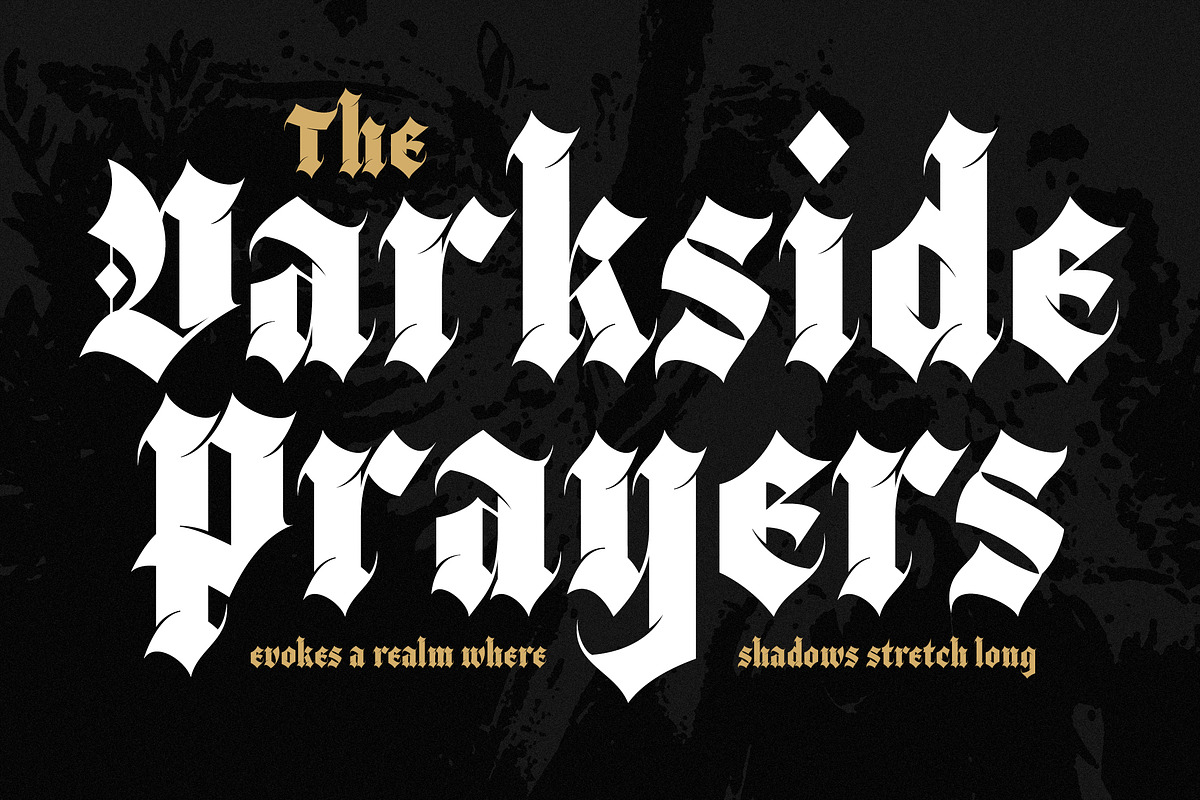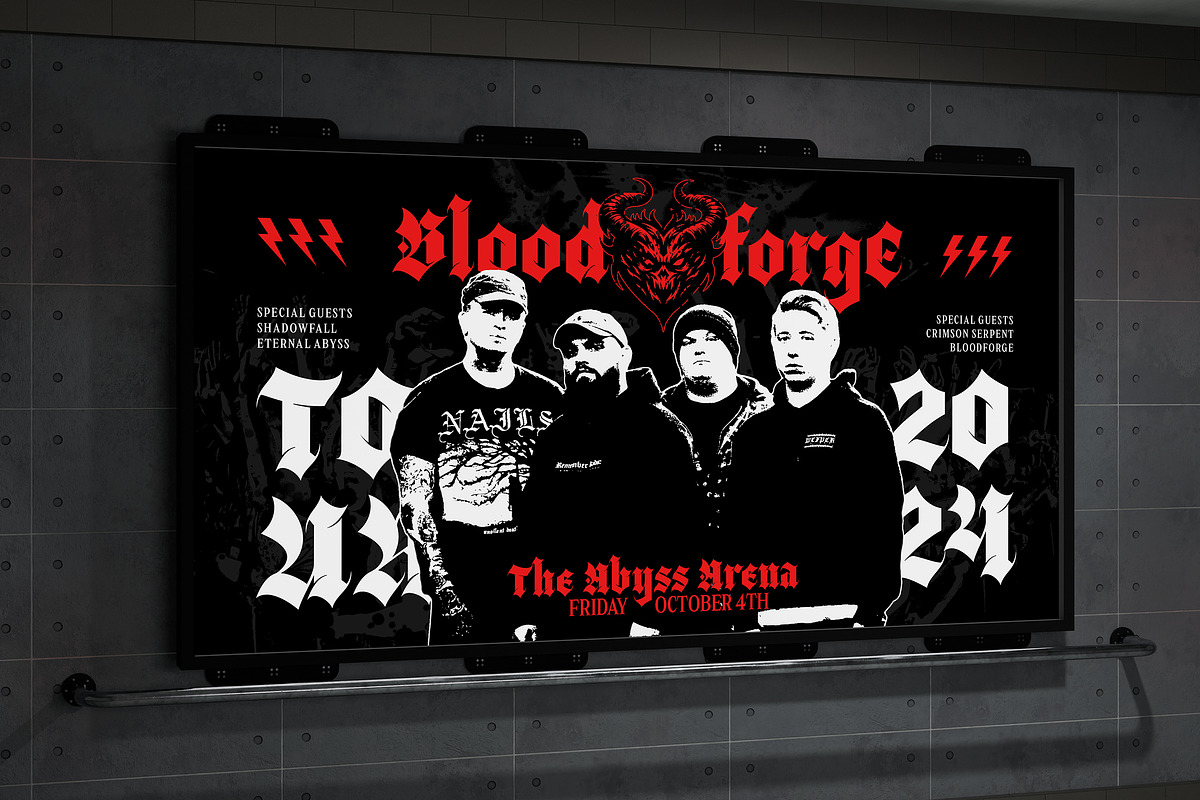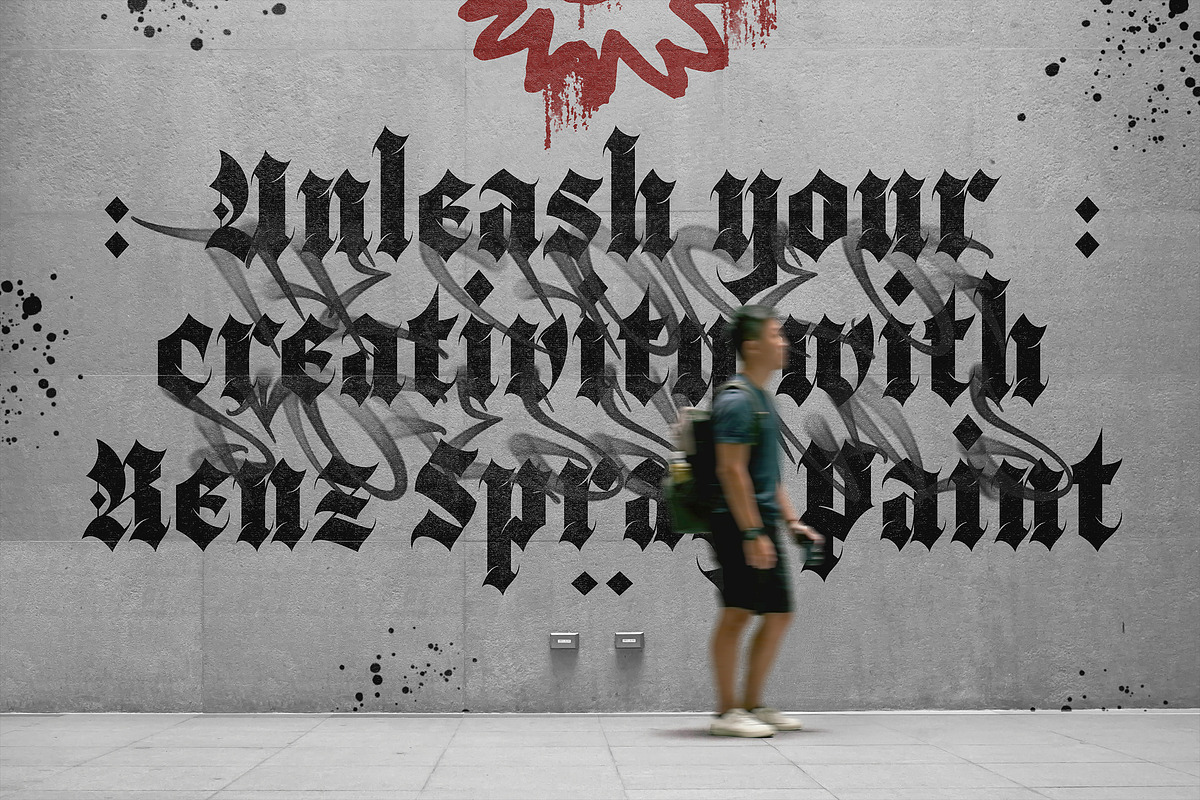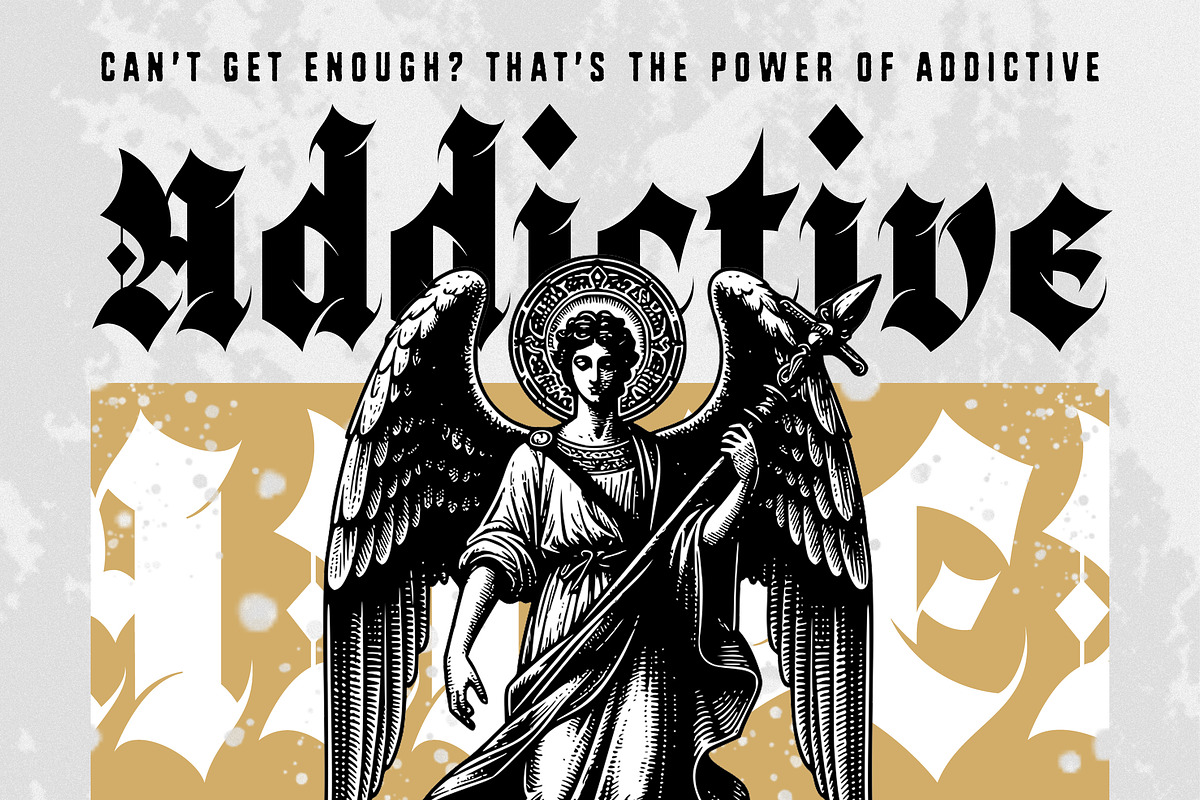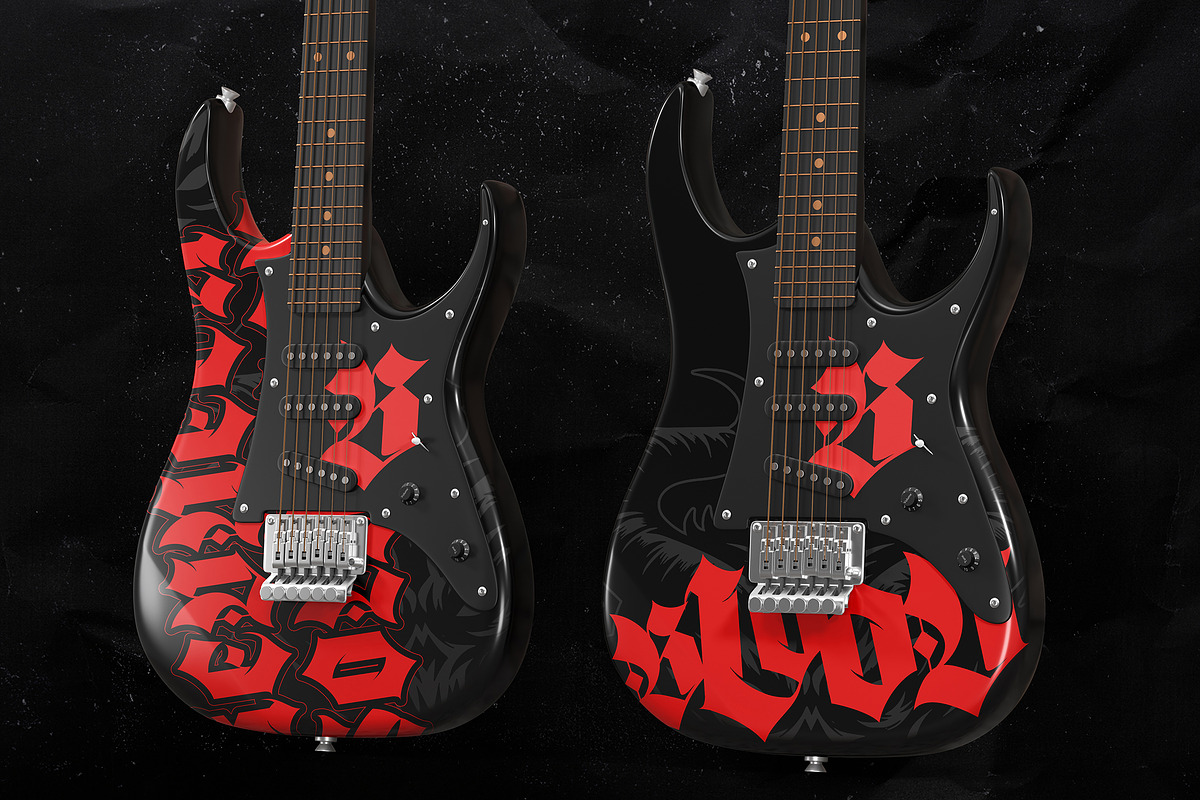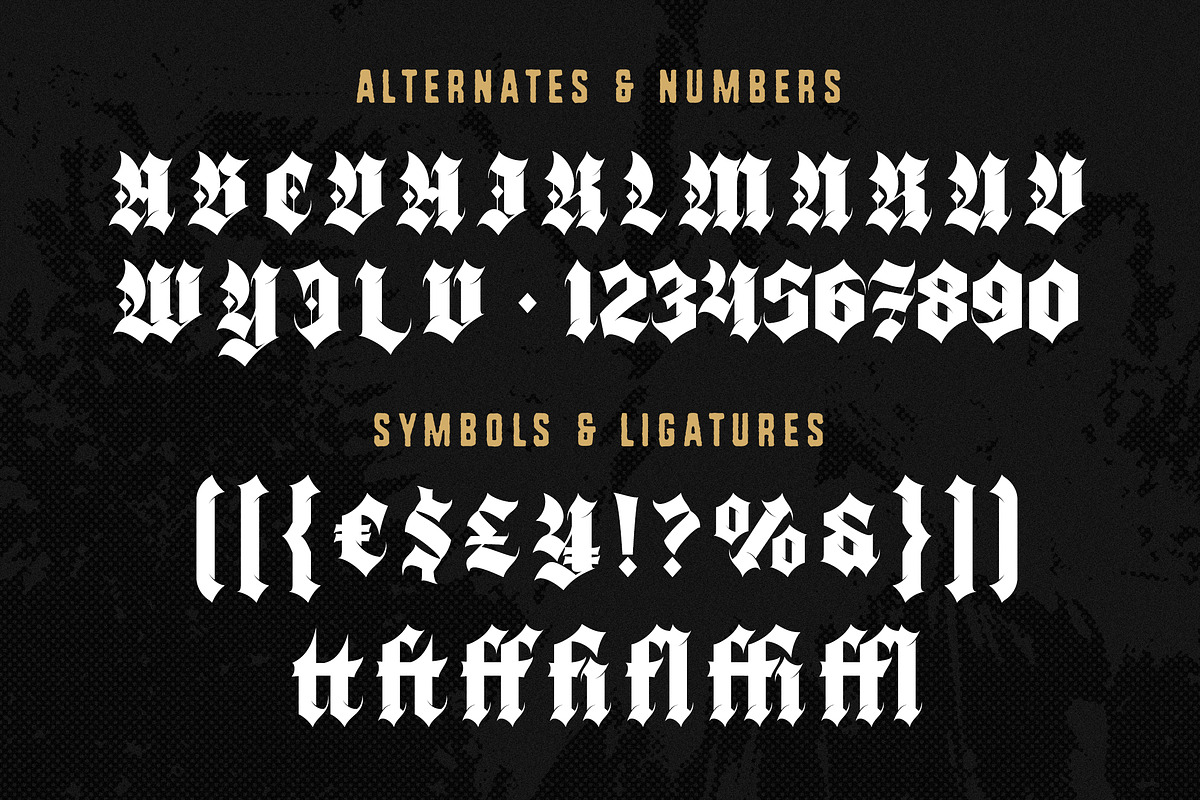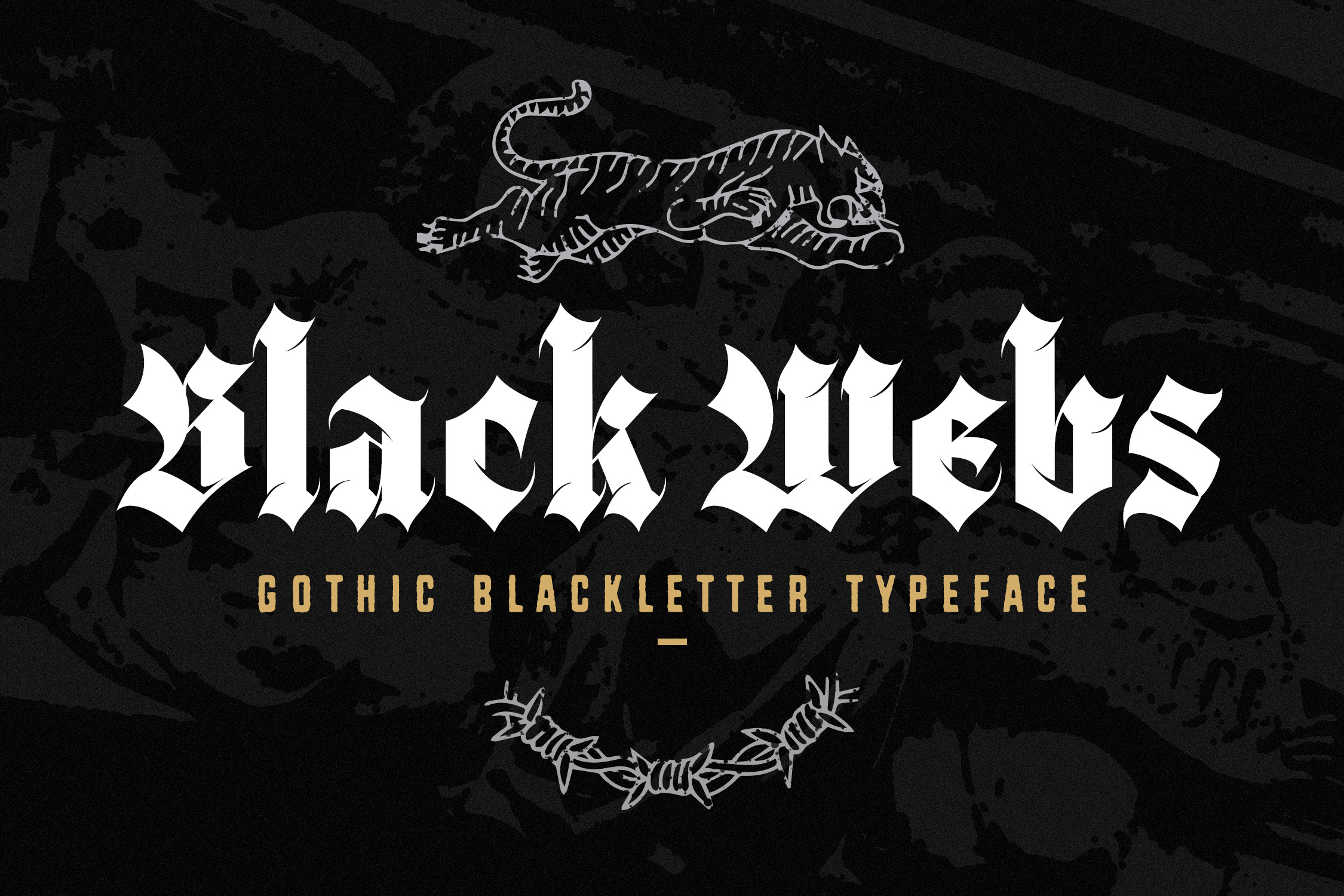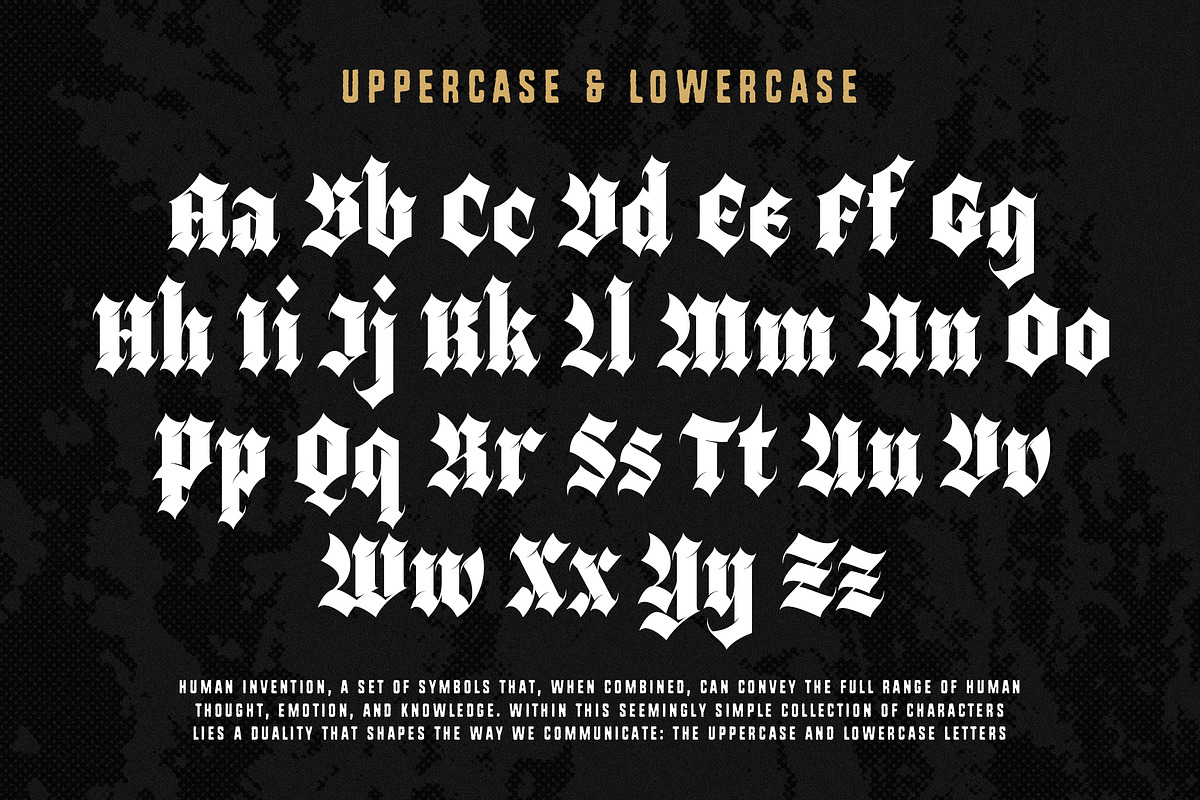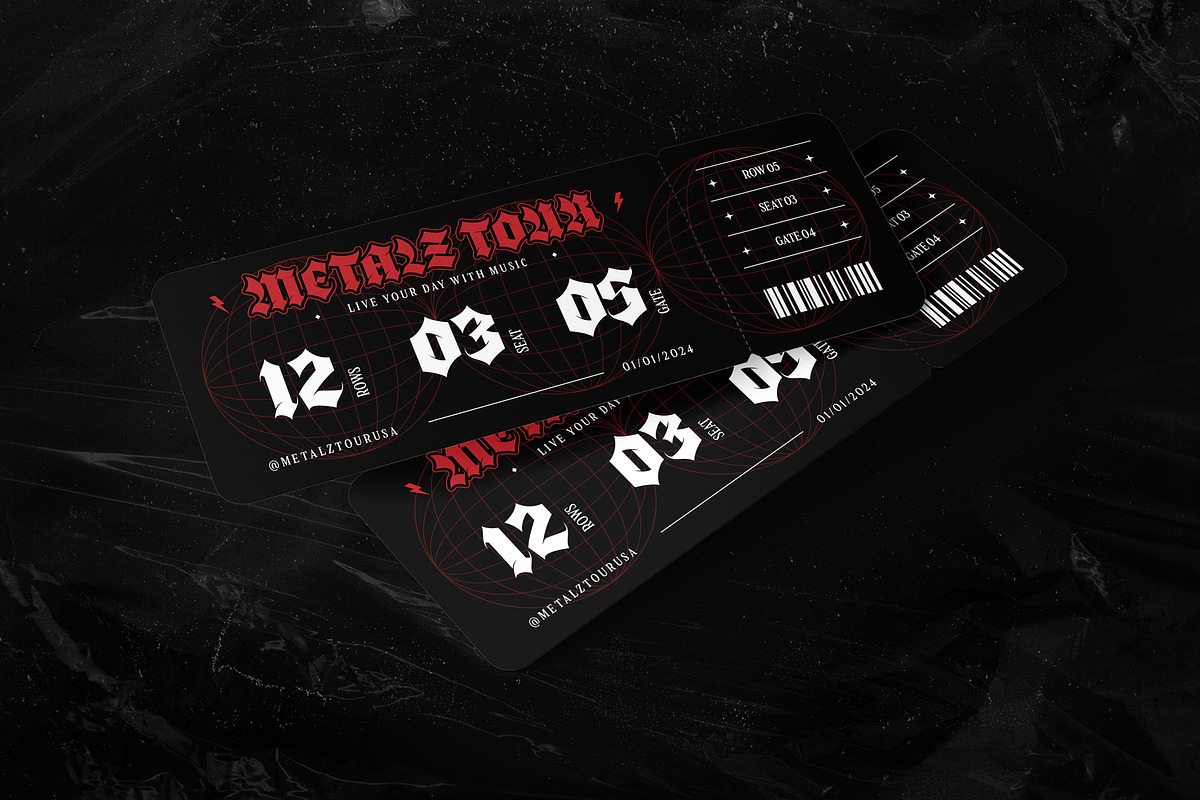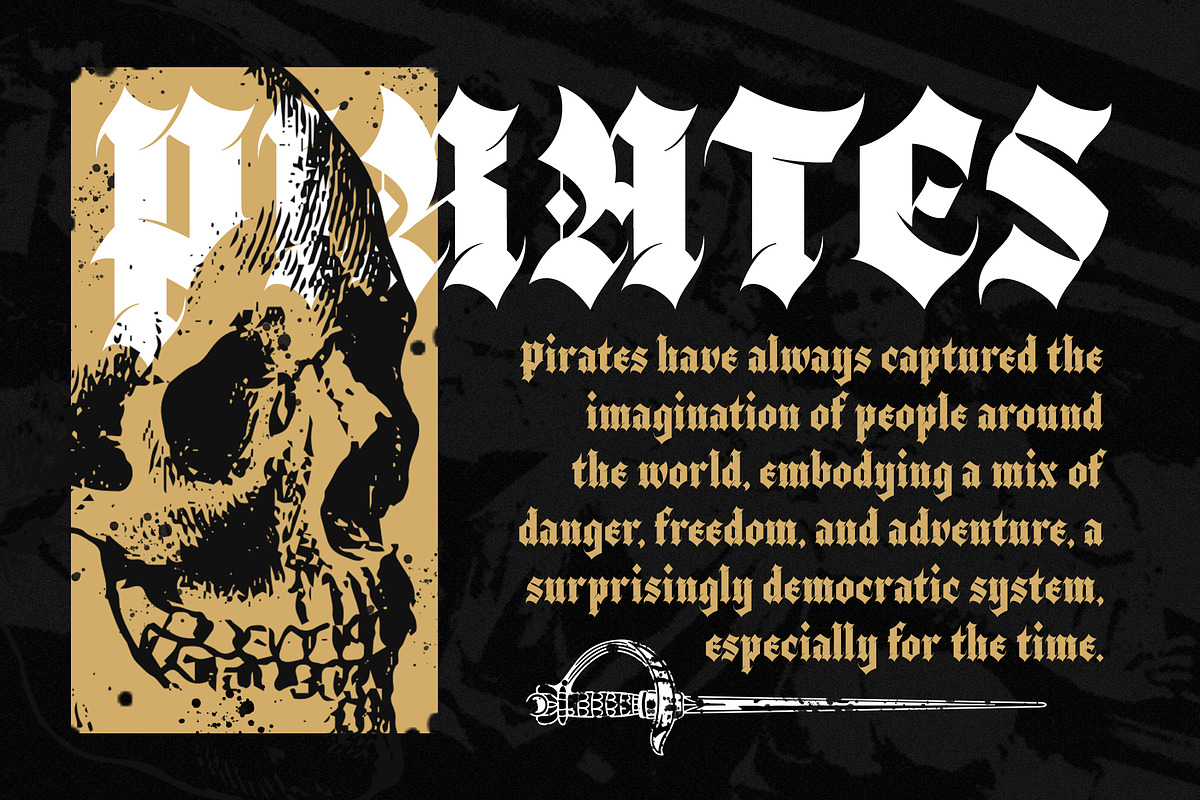
Black Webs - Gothic Blackletter Font
Black Webs - Gothic Blackletter Decorative Typeface - Black Dark Bold Modern Display Font.
Black Webs is a Gothic Blackletter Typeface that embodies the dark, mysterious allure of medieval design with a modern twist. With its bold, intricate strokes and sharp, angular forms, this font is perfect for creating dramatic, eye-catching visuals. It's ideal for branding, album covers, tattoo designs, posters, logos, game design, movie titles, packaging design, apparel branding and any design that require a gothic or medieval aesthetic. Black Webs also shines in editorial designs, book covers, and any project that seeks to evoke a sense of dark elegance and historical depth brings an air of mystique and intensity to your projects, making it an ideal choice for those looking to make a statement. Comes with uppercase and lowercase letters, punctuation, numerals, ligatures, alternate characters, and multilingual support. The ligatures and alternates offer designers the ability to create unique and personalized typography, enhancing the gothic essence of the font. Designed for those who dare to be bold, Black Webs is ideal for creative professionals who want to incorporate a strong, gothic aesthetic into their work.